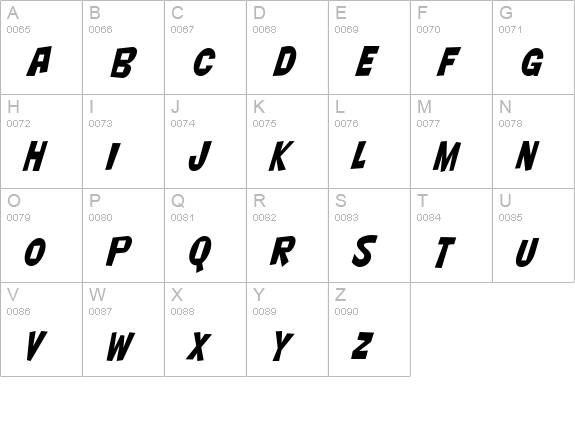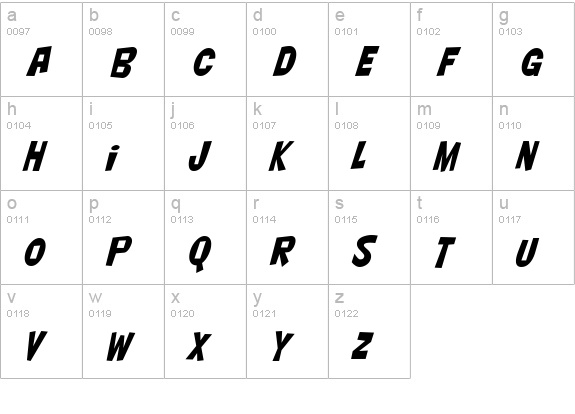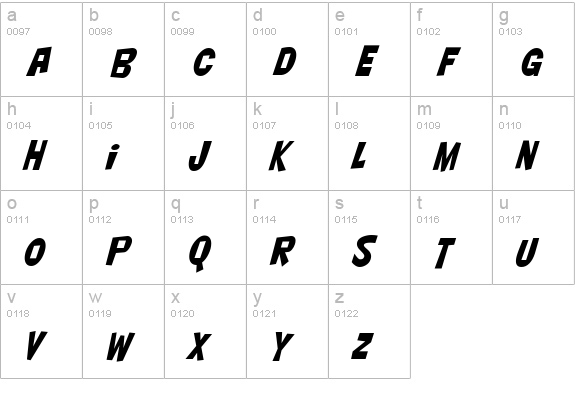
Nightclub BTN Cn Oblique Font Details
Nightclub BTN Cn Oblique is a distinctive, italic variant in the Nightclub typeface family \xE2\x80\x94 well suited to design and typography projects.
Nightclub BTN Cn Oblique font is a stylish and modern typeface that exudes a sense of sophistication and elegance. Its sleek design and slanted letters give it a unique and eye-catching appearance, making it perfect for use in various design projects. Whether you're looking to add a touch of glamour to your branding, invitations, or advertisements, this font is sure to make a statement. What's even better is that Nightclub BTN Cn Oblique font is available for free download at FontsMarket.com. This means you can easily access this stunning font and incorporate it into your designs without any cost. Don't miss out on the opportunity to elevate your creations with this beautiful and versatile typeface. Download Nightclub BTN Cn Oblique font today and let your creativity shine!